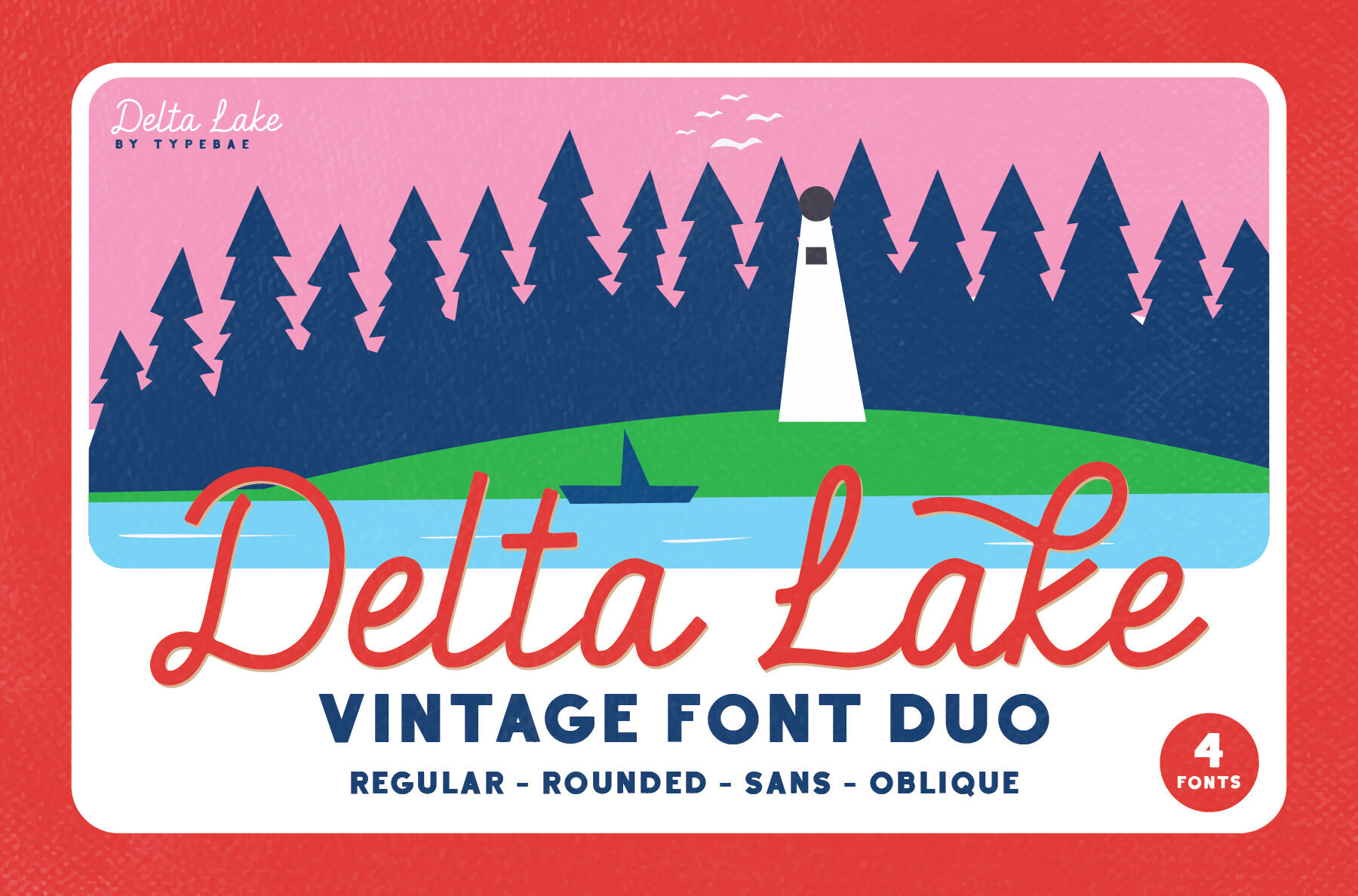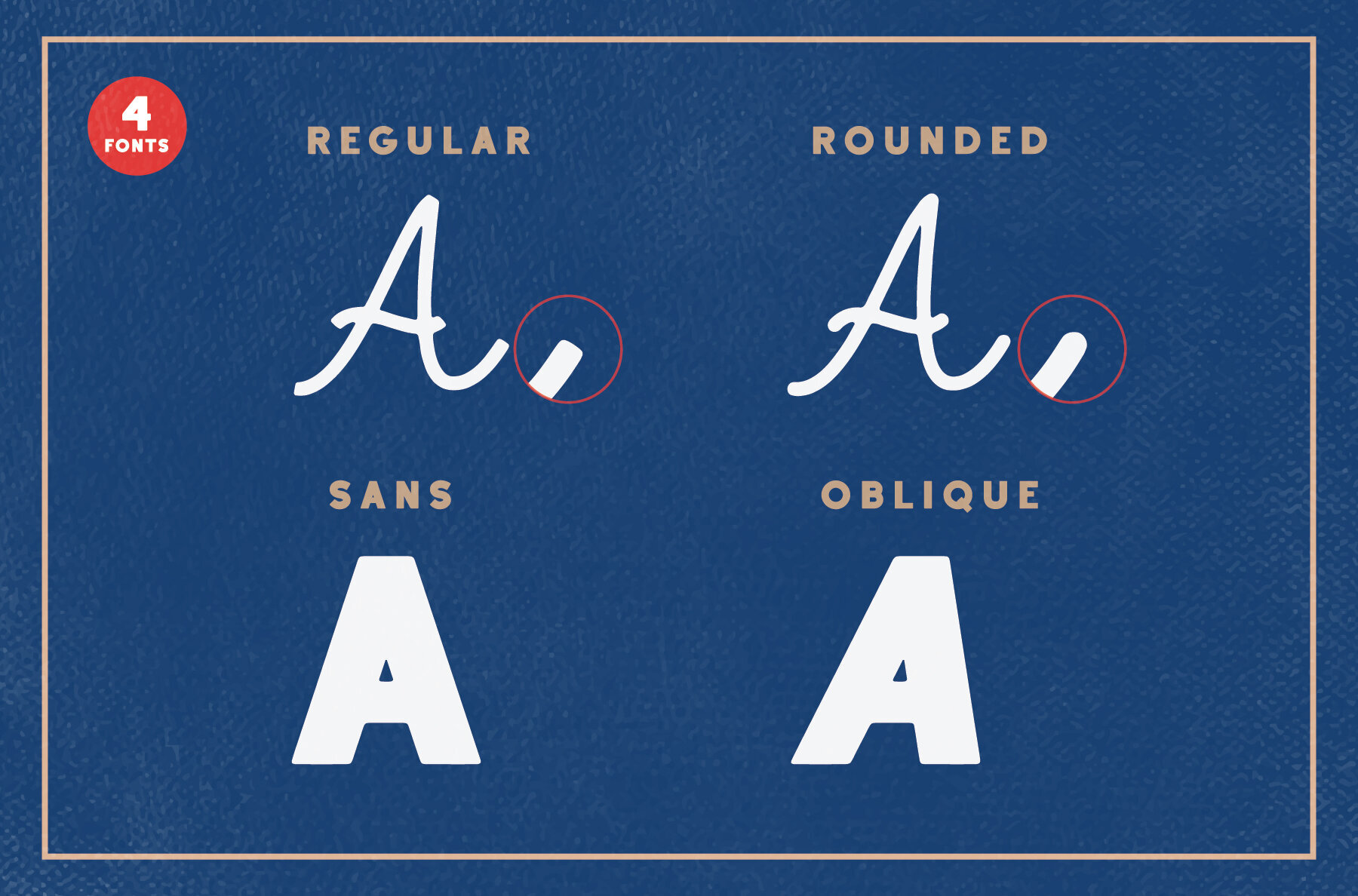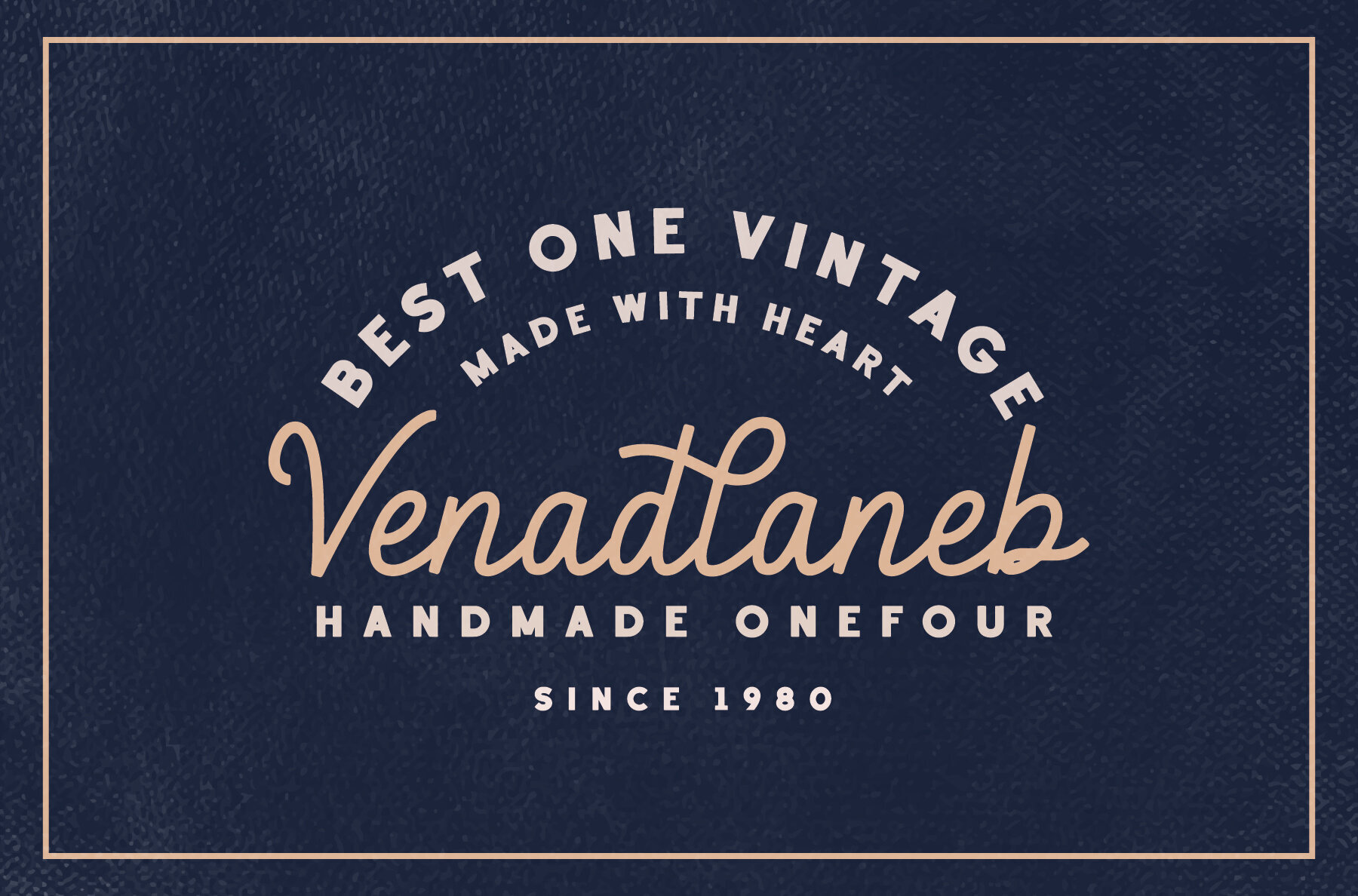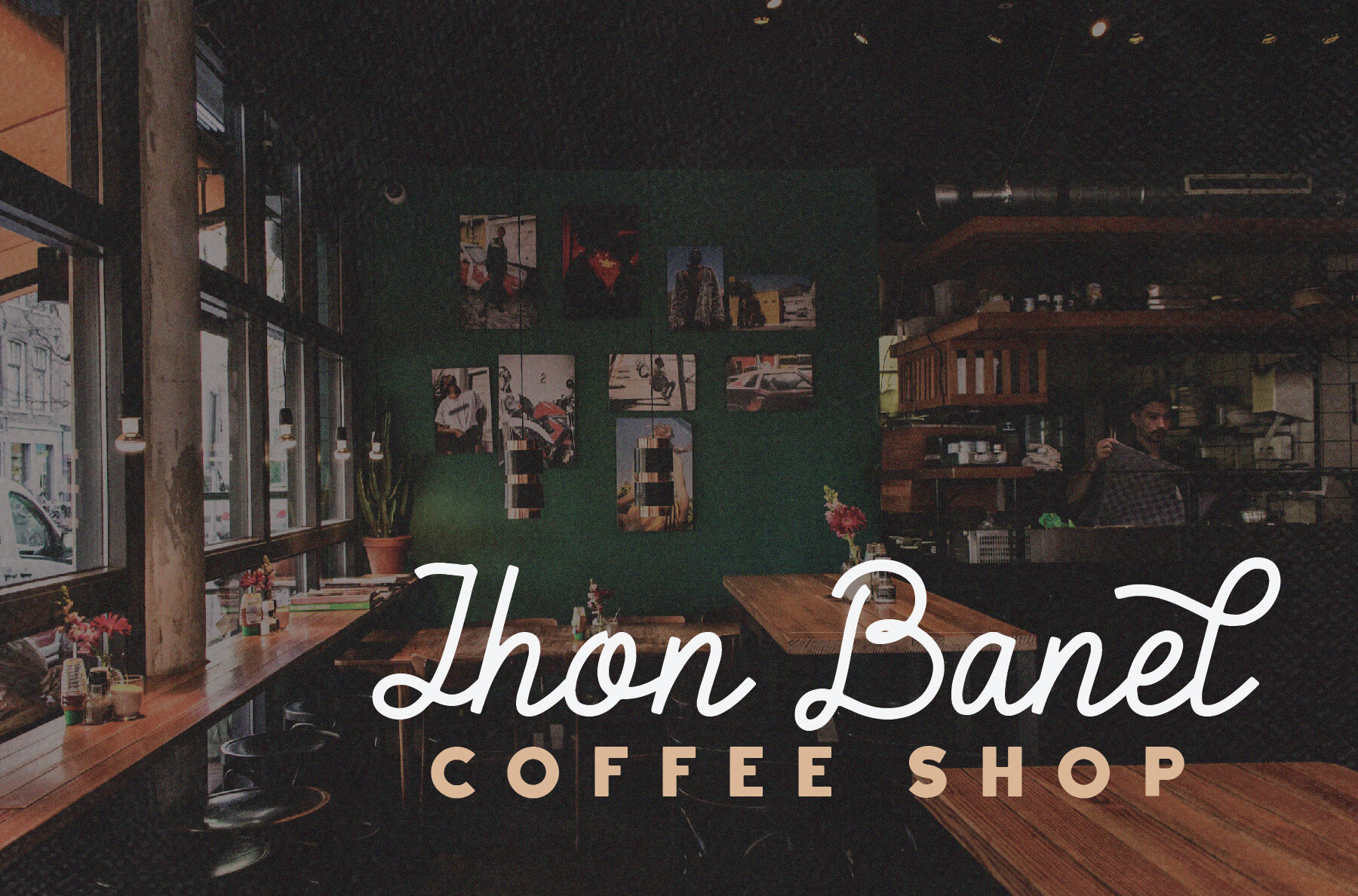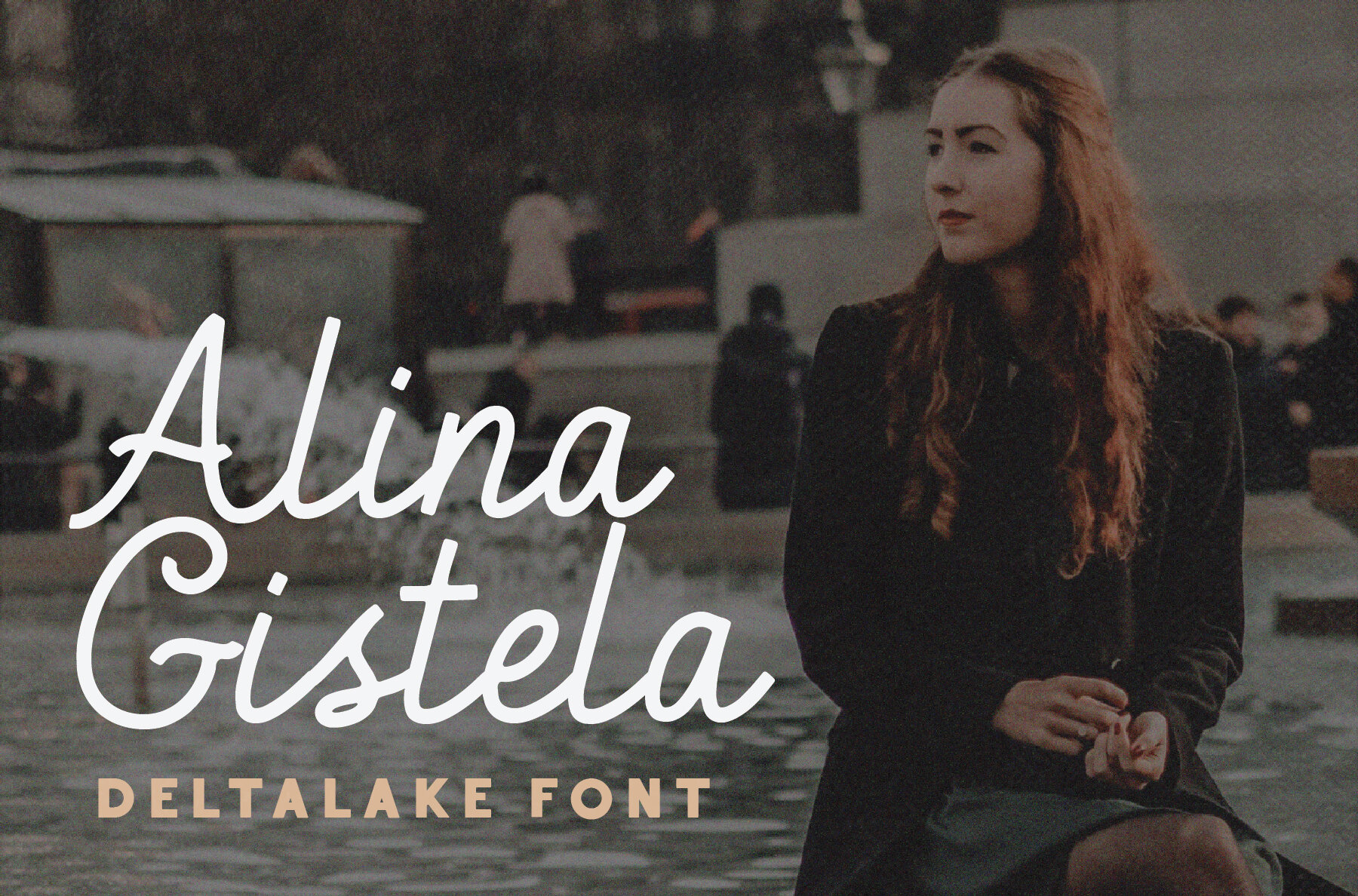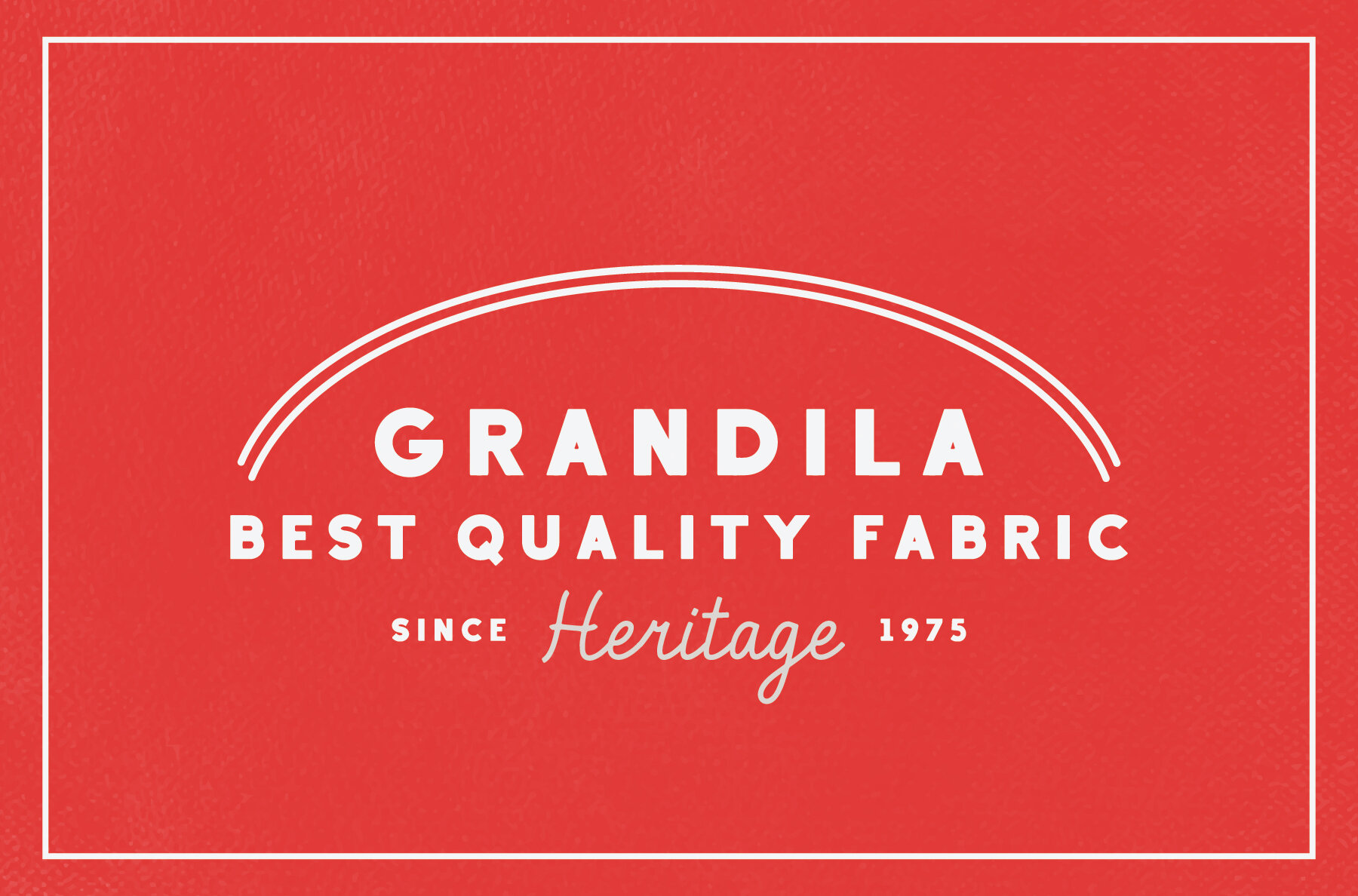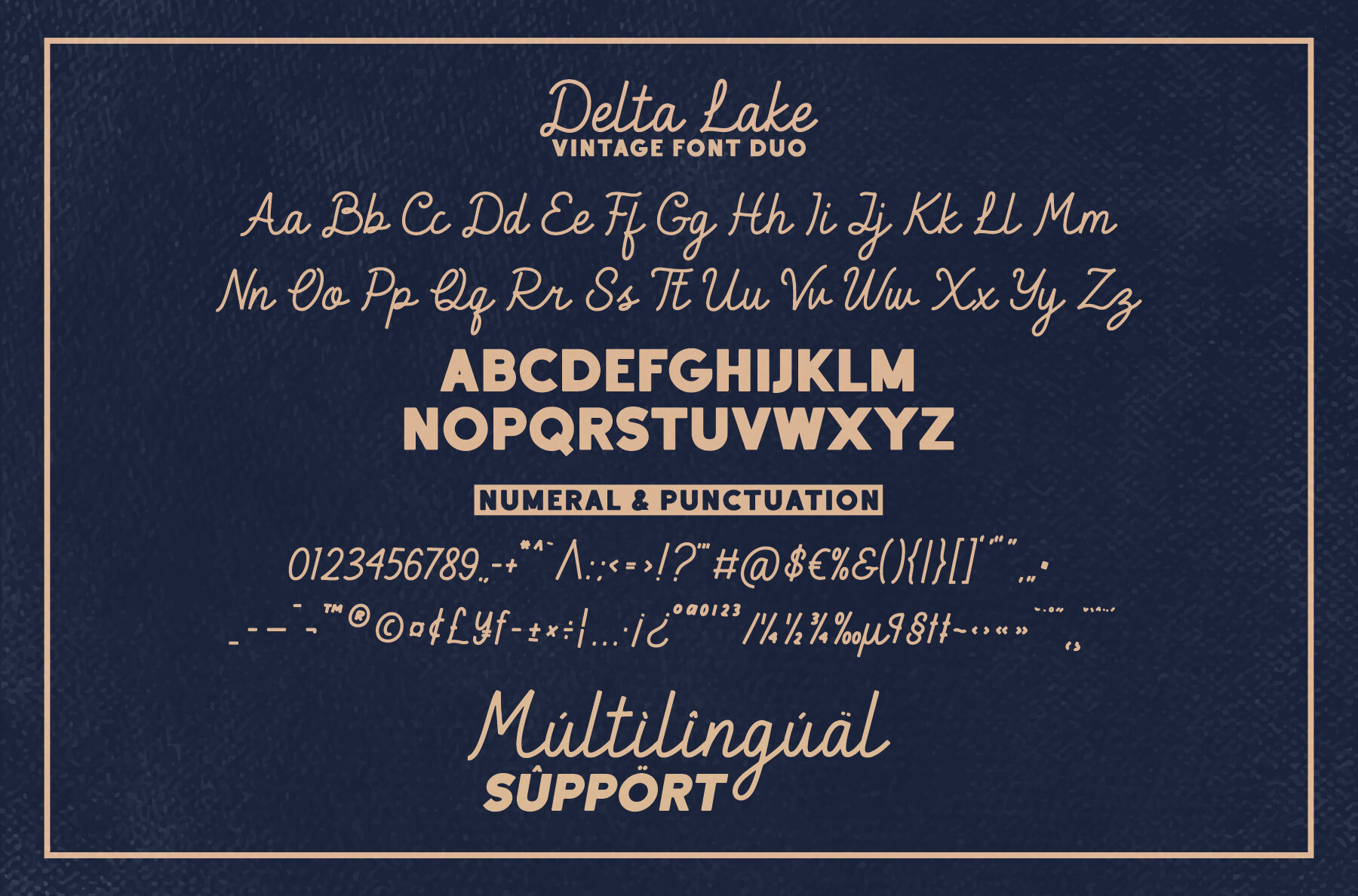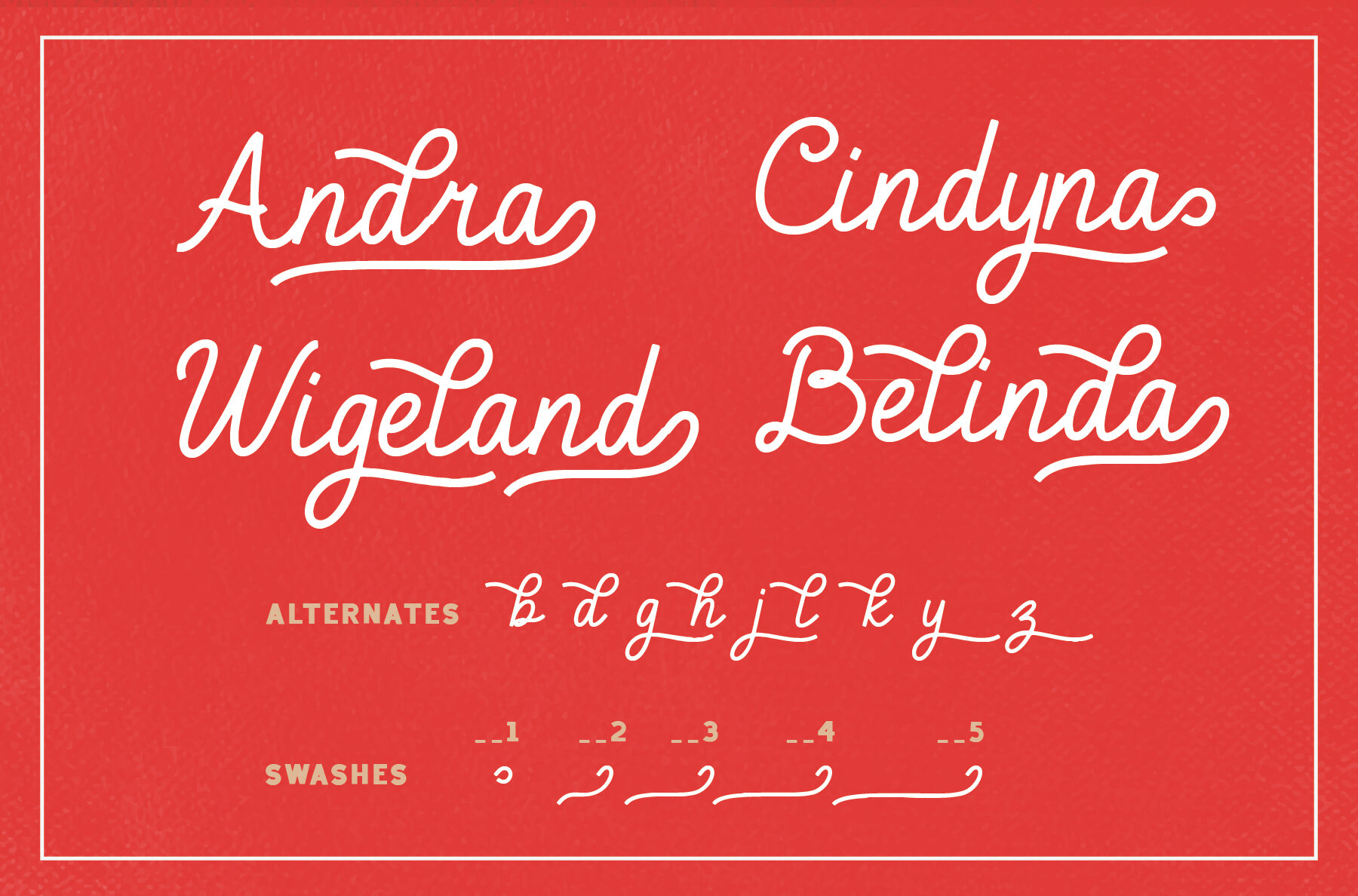
Delta Lake Font
Delta Lake
Delta Lake Sans
Delta Lake Oblique
Delta Lake Rounded
Delta Lake combines the timeless elegance of a vintage script font with the clean lines of a sans-serif, creating a versatile typographic tool. With four distinct styles, Delta Lake lends a nostalgic charm to any project, infusing it with a unique character.Delta Lake: Vintage Script with Modern Versatility